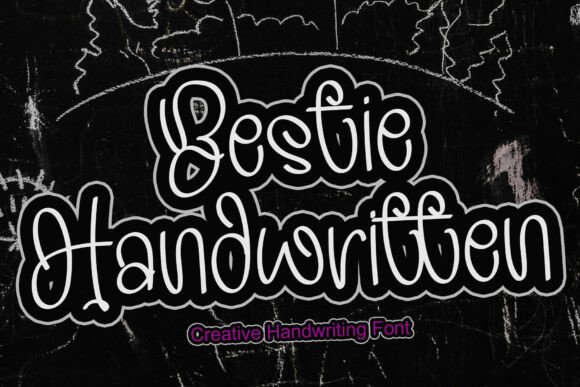
The Power of Bestie Handwritten: Elevate Your Designs with a Bold and Captivating Font
I’ll never forget the design project that pushed me to search for the perfect bold font. I was working on a branding campaign for a new coffee shop, and my client wanted a logo that would stand out on a crowded street. I tried font after font, but nothing seemed to capture the right mix of personality and professionalism. That was until I stumbled upon Bestie Handwritten. This bold and captivating display font completely transformed my design, and I’ve been hooked ever since.
An Honest Review of Bestie Handwritten
- ✨ Instant Impact: Bestie Handwritten commands attention with its strong, distinctive letterforms. It’s the perfect font for projects that need to make a statement.
- ✅ Creative Freedom: The font’s unique style blends creativity and impact, giving you the flexibility to experiment with different design ideas.
- 💥 Memorable Typography: Bestie Handwritten adds a touch of bold magic to your visuals, making your designs more memorable and engaging.
While Bestie Handwritten is an amazing font, there are a few things to keep in mind:
- ⚠️ Legibility at Small Sizes: As with many display fonts, Bestie Handwritten can become less legible at smaller sizes. It’s best used for headlines or titles.
- 🤔 Pairing with Other Fonts: Due to its bold personality, Bestie Handwritten works best when paired with simpler fonts that provide contrast.
The Backstory of Bestie Handwritten
Bestie Handwritten was designed with the goal of creating a bold, attention-grabbing font that would add personality to any design. The designer aimed to blend creativity and impact, resulting in a font that’s both memorable and versatile. While the exact inspiration might be unknown, it’s clear that Bestie Handwritten was crafted with the intention of making a statement.
Q: Is Bestie Handwritten suitable for body text?
A: No, Bestie Handwritten is best used for headlines or titles due to its bold personality and potential legibility issues at smaller sizes.
Q: Does Bestie Handwritten support OpenType features?
A: Yes, Bestie Handwritten supports OpenType features like stylistic alternates and glyphs, which can add more variety to your typography.